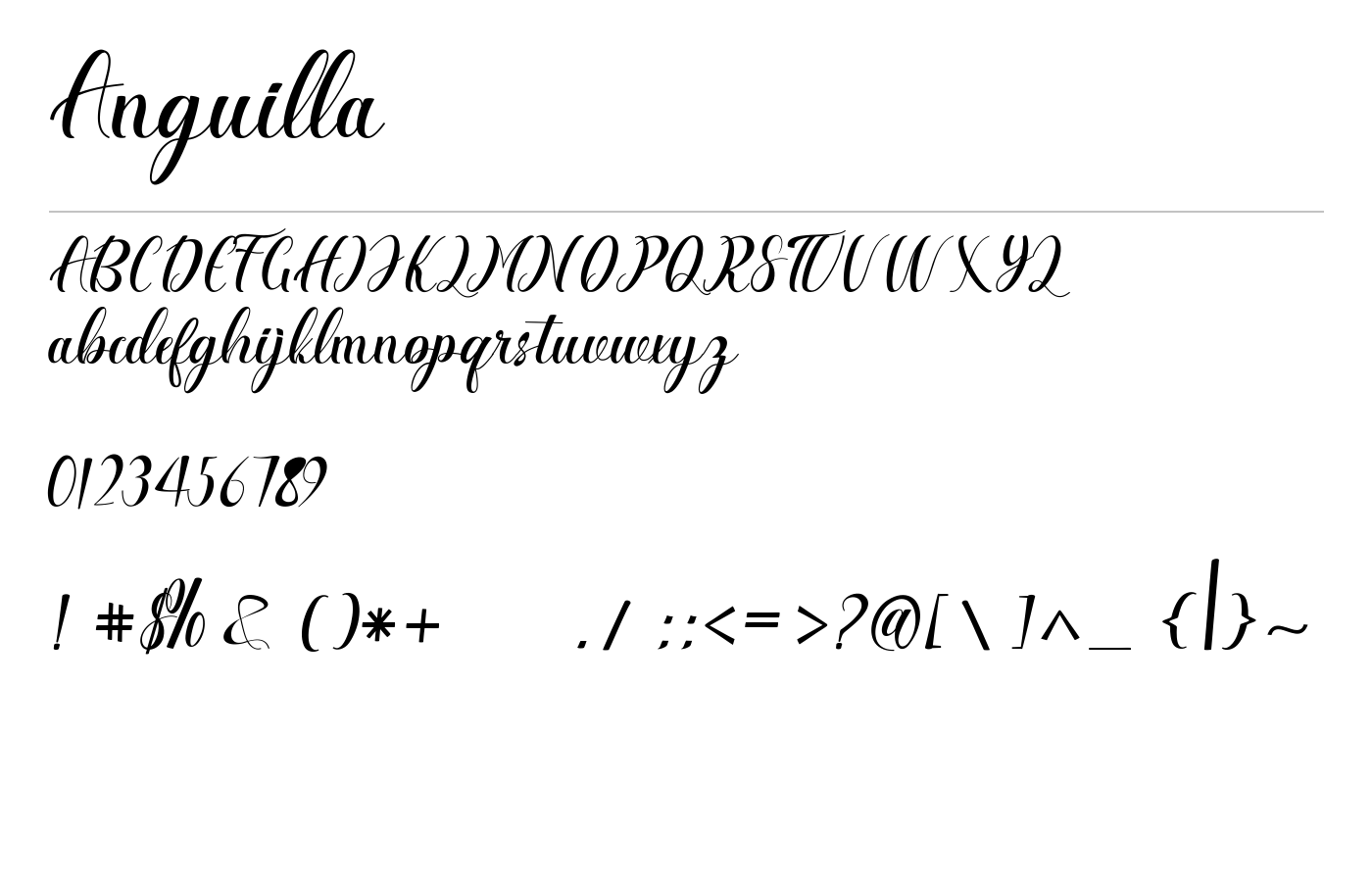
Anguilla is an elegant script font characterized by its smooth, flowing strokes and refined calligraphic style. With a moderate contrast between thick and thin lines and gracefully looping letterforms, it conveys a sophisticated and stylish personality perfect for invitations, branding, and luxury design projects. Its distinctive charm and fluidity make it ideal for adding a touch of elegance to headlines, logos, and decorative text.
Anguilla Font
About Anguilla Font
| Font family | Anguilla Font |